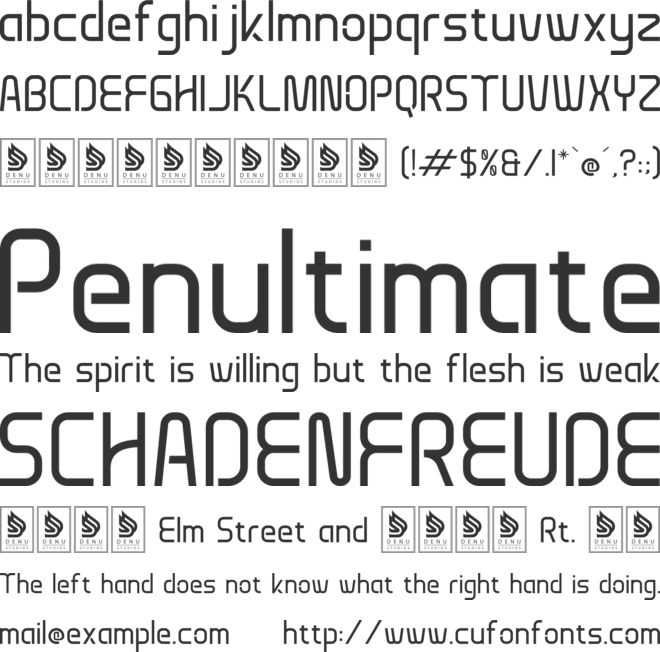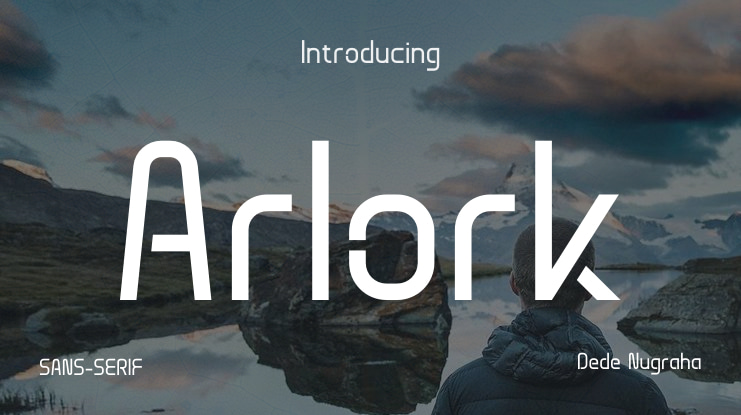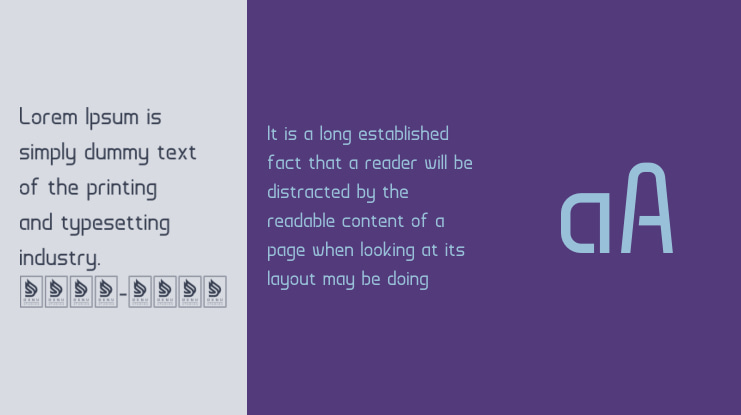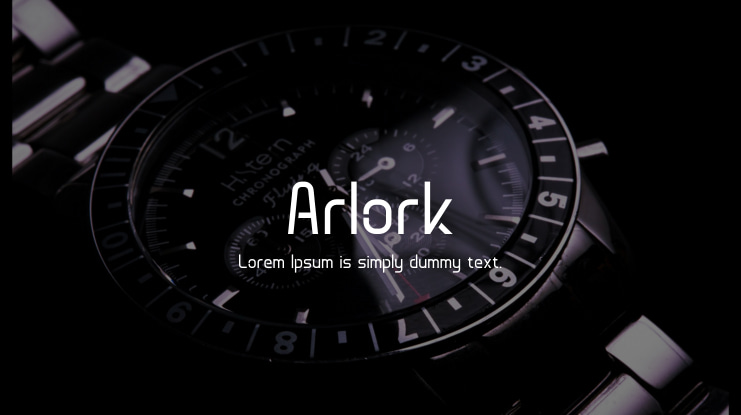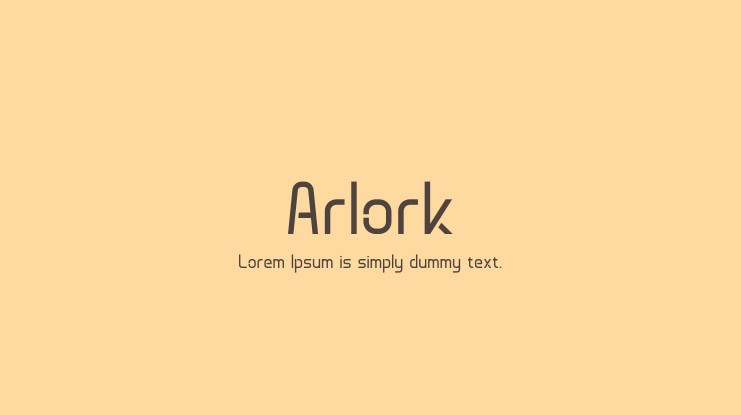
Arlork Font
Arlork | Modern Techno Sans Serif is perfect for various projects including logos, branding, homeware designs, product packaging, mugs, quotes, posters, shopping bags, t-shirts, book covers, name cards, invitation cards, greeting cards, labels, photography, watermarks, special events, and any other projects that benefit from a modern techno sans serif aesthetic.